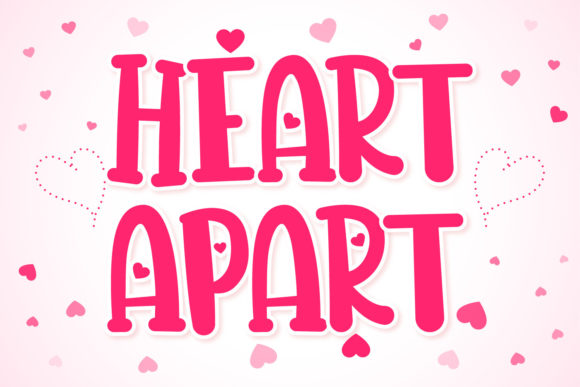
Journey into the realm of captivating typography with Heart Apart Font, a display font brimming with charm and playfulness. Its bold, thick letters dance across your designs, evoking a sense of carefree joy and lightheartedness. Let your creativity soar as you adorn your T-shirts, posters, and social media posts with this delightful font.
Heart Apart Font is a treasure trove of visual delight, enchanting your audience with its whimsical curves and cheerful strokes. Picture your designs blossoming with a touch of whimsy and enchantment, leaving an indelible mark on the hearts of your viewers. With Heart Apart Font, you'll craft designs that radiate warmth and charm, creating an emotional connection that resonates deeply.
Unleash your imagination and let Heart Apart Font guide you on a creative odyssey. From playful children's games to heartfelt romantic designs, this font effortlessly adds a sprinkle of magic to every project. Its versatility knows no bounds, seamlessly adapting to a myriad of design styles and themes.